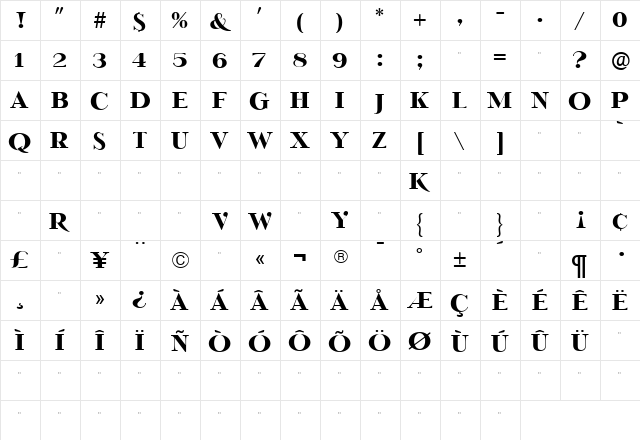
HondurasSolid Roman Font Preview
HondurasSolid Roman
Design Context for HondurasSolid Typeface
HondurasSolid offers clean, dependable letterforms without strong stylistic allegiance, making it a practical choice for designers who need flexibility.